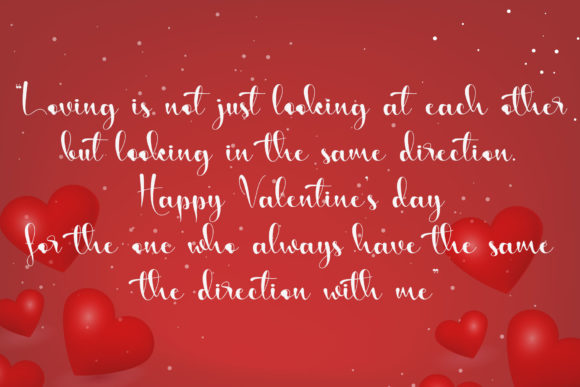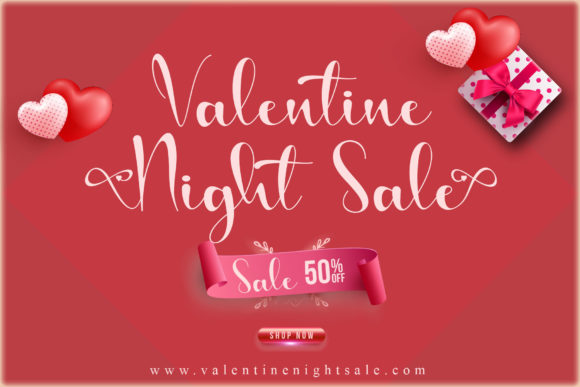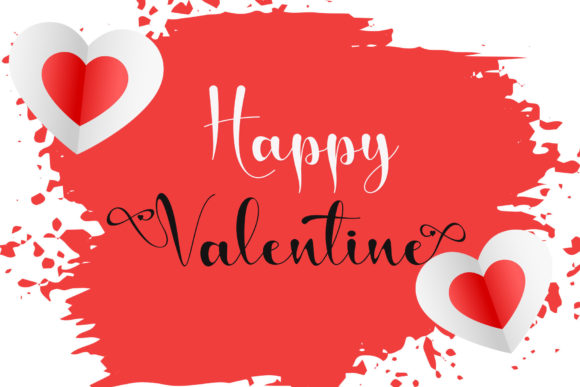
Introduction to Sincere Valentine Font
Do you remember the first time you designed a Valentine’s Day card for your loved one? The hours spent crafting the perfect message, choosing the right colors and fonts to convey your feelings. For designers, this creative project is a chance to express themselves and make the day even more special. With the right design resource, the difference can be truly magical.
Enter the Sincere Valentine Font, a beautiful, modern handwritten font designed with love and care. This high-quality font is perfect for designers looking to add a touch of romance to their projects. Whether you’re working on a commercial design or a personal gift, the Sincere Valentine Font is sure to impress. And the best part? It’s free to download, making it a valuable addition to any designer’s toolkit.
With its transparent background and PUA encoded glyphs, the Sincere Valentine Font is a versatile design resource that can be used in a variety of creative ways. So why settle for an ordinary font when you can make your designs stand out with this stunning, free download?
Key Features of Sincere Valentine Font
- Unique and elegant design suitable for creative projects and romantic themes
- Available in 4 different font styles (Regular, Italic, Bold, and Bold Italic) for added versatility
- Designed to be a valuable design resource for graphic designers, artists, and anyone looking for a beautiful font for their creative project
- Perfect for Valentine’s Day and other romantic occasions, as well as general use in wedding invitations, greeting cards, and more
Honest Review: Sincere Valentine Font
I recently stumbled upon the Sincere Valentine Font while searching for a free download to enhance a creative project. At first glance, I was impressed by the elegant design and high-quality texture it offered. The font’s transparent background makes it easy to layer over images or other design elements, which is a definite plus for designers.
- ✨ The Sincere Valentine Font is incredibly versatile, making it suitable for a wide range of creative projects, from wedding invitations to social media graphics.
- ✨ The font’s high-quality design and smooth texture ensure that it looks great in various font sizes and styles.
However, I did encounter some limitations during my testing. The Sincere Valentine Font is limited to a specific style and theme, which may not be ideal for projects that require a more neutral or modern aesthetic.
- ⚠️ The font’s theme is quite specific, which may limit its use in certain design projects.
- ⚠️ The font’s design, while elegant, may not be suitable for projects that require a more playful or whimsical tone.
Overall, I would say that the Sincere Valentine Font is a solid design resource that can add a touch of elegance to any creative project. While it may have some limitations, its high-quality design and versatility make it a great option for designers looking for a unique and eye-catching font.
Tips for Getting the Most Out of the Sincere Valentine Font
Use the Sincere Valentine Font in creative projects, such as Valentine’s Day cards, invitations, and social media graphics. Take advantage of the font’s transparent background to create unique and eye-catching designs. Experiment with different font sizes, colors, and styles to add depth and visual interest to your designs.
The Sincere Valentine Font is ideal for:
- Valentine’s Day cards and invitations